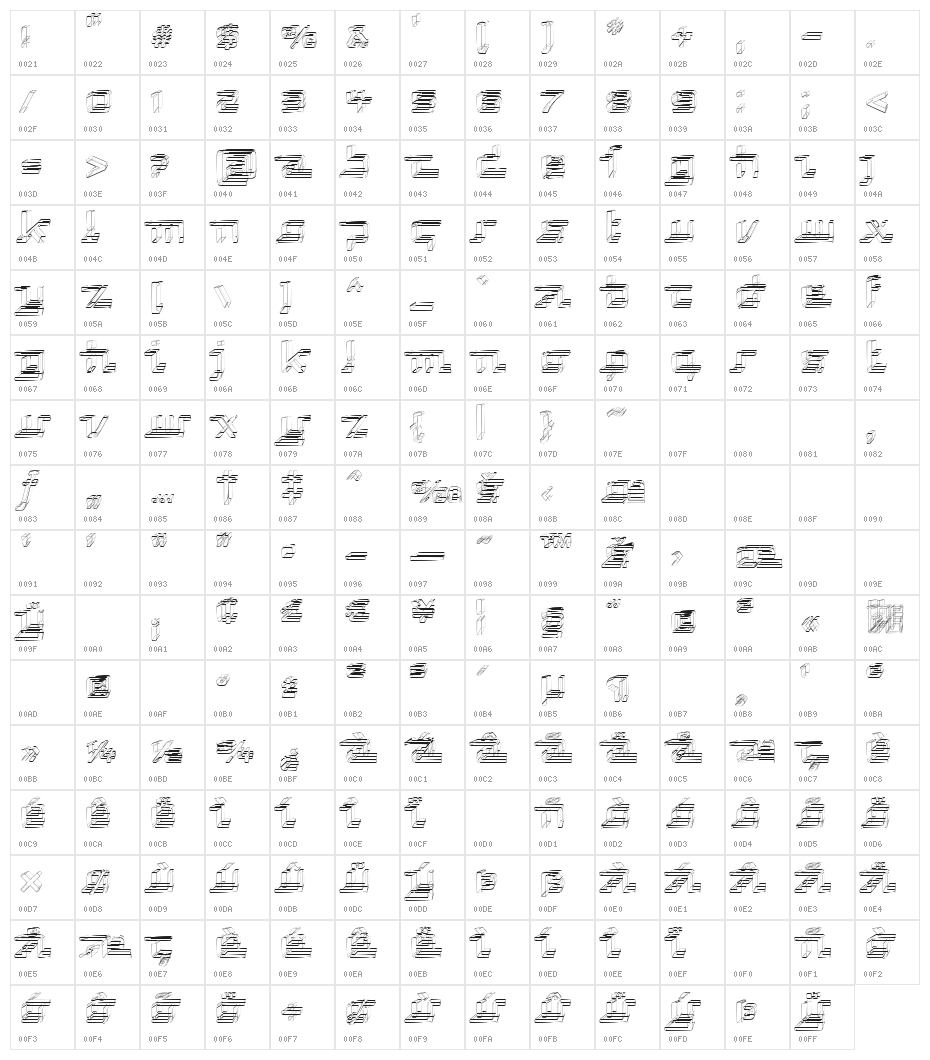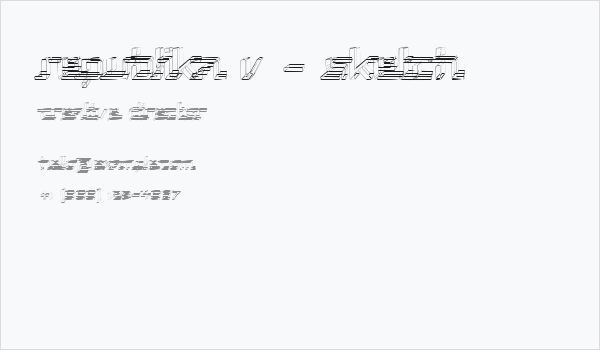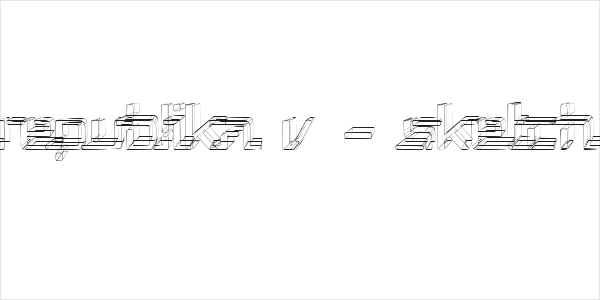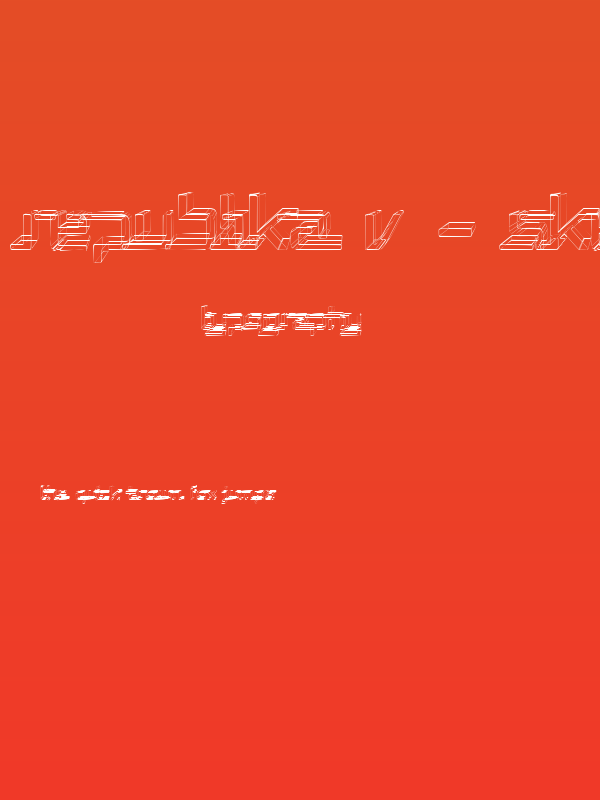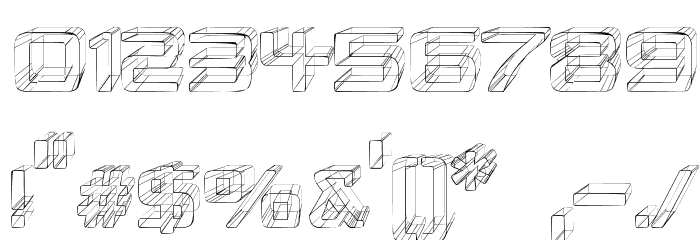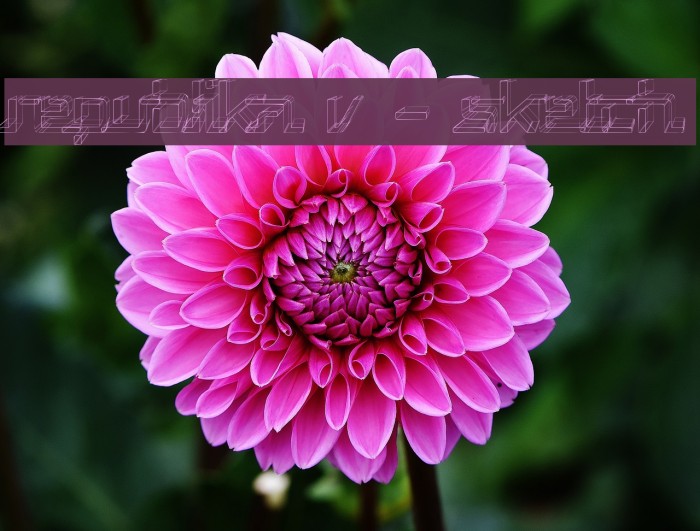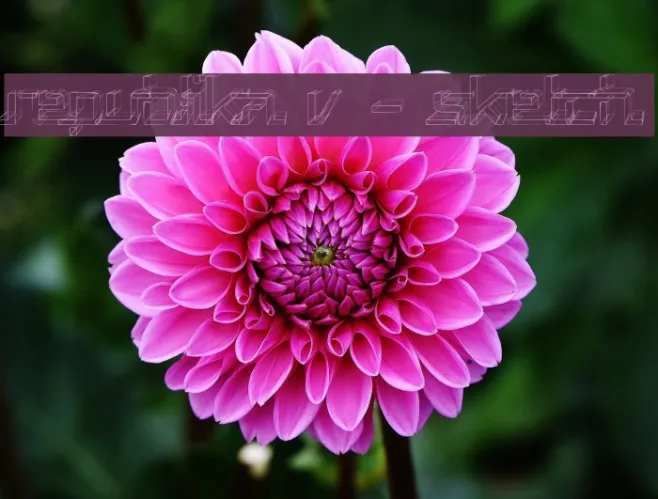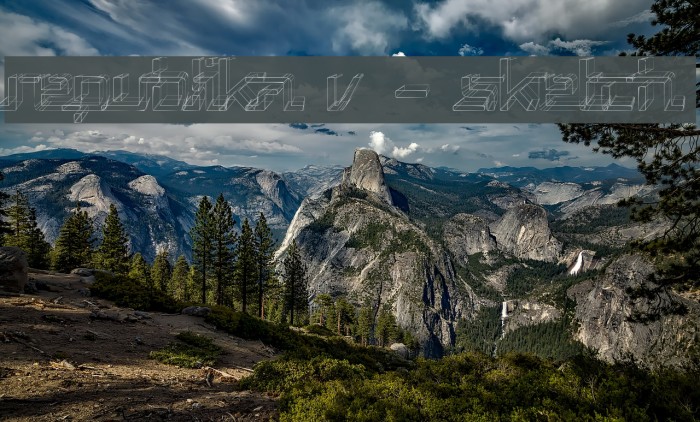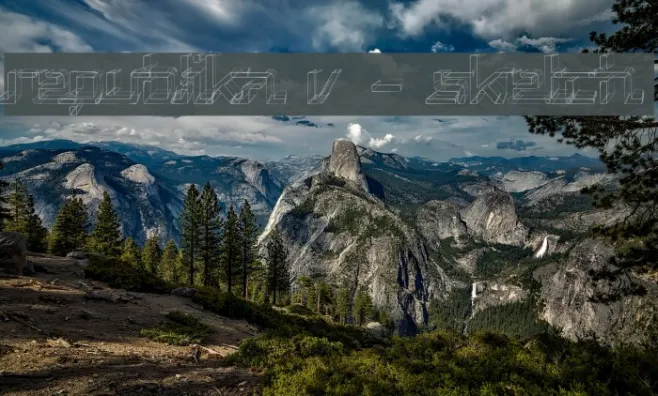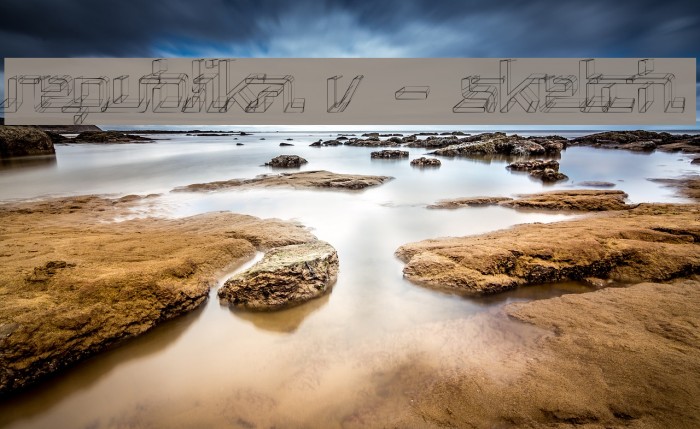
Republika V - Sketch Font
Republika V - Sketch Description
This font features a unique, sketch-like appearance with a three-dimensional effect. Each character is outlined with multiple overlapping lines, creating a sense of depth and movement. The geometric structure is consistent across all letters and numbers, giving it a futuristic and technical feel. The characters are bold and angular, with sharp edges and straight lines, which contribute to its modern and edgy style. The font maintains a consistent width and height, ensuring uniformity and balance throughout the text. Its distinctive style makes it stand out, making it suitable for creative and artistic projects.
| Proposed Projects | Ideal for digital art, tech-themed designs, posters, and branding that requires a modern and edgy aesthetic. |